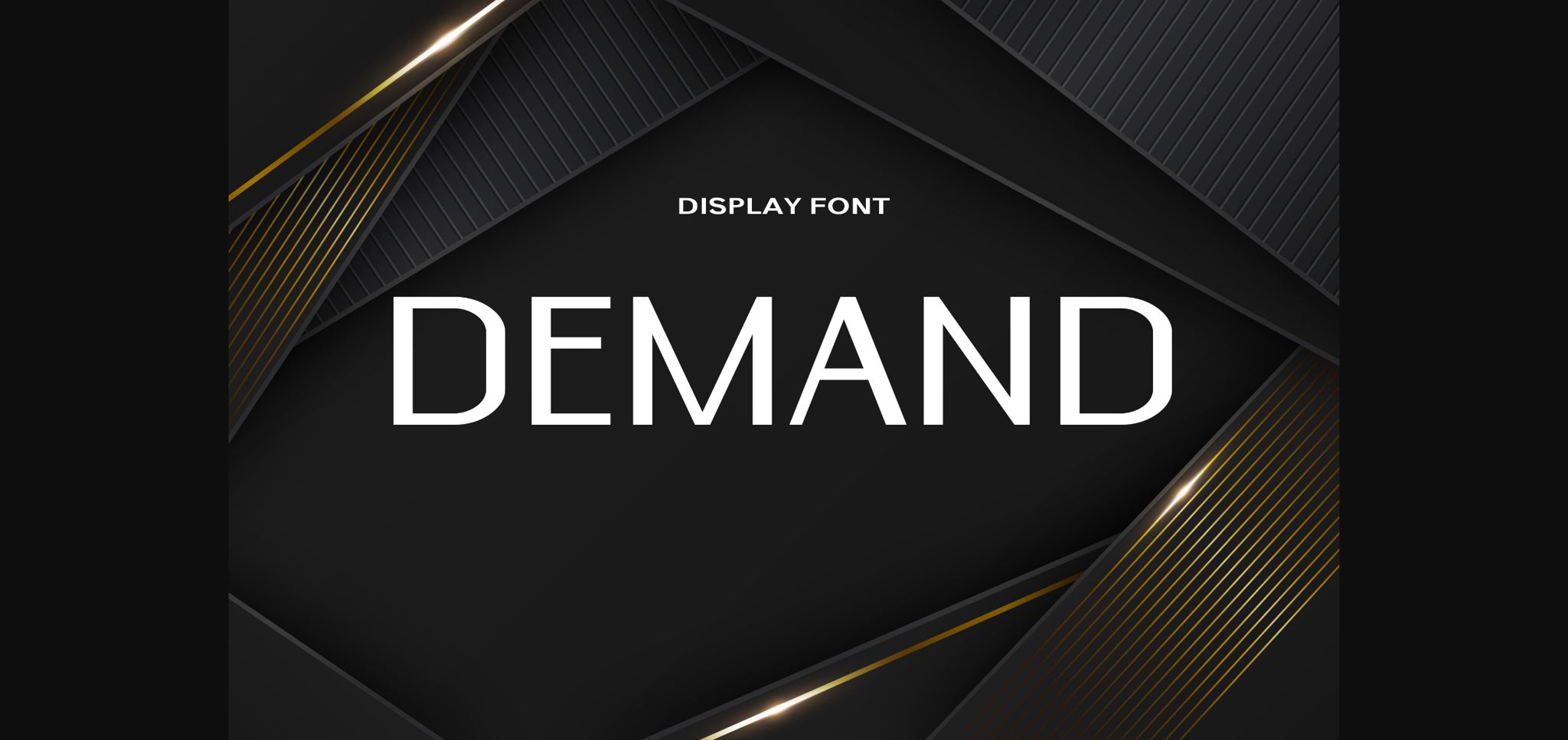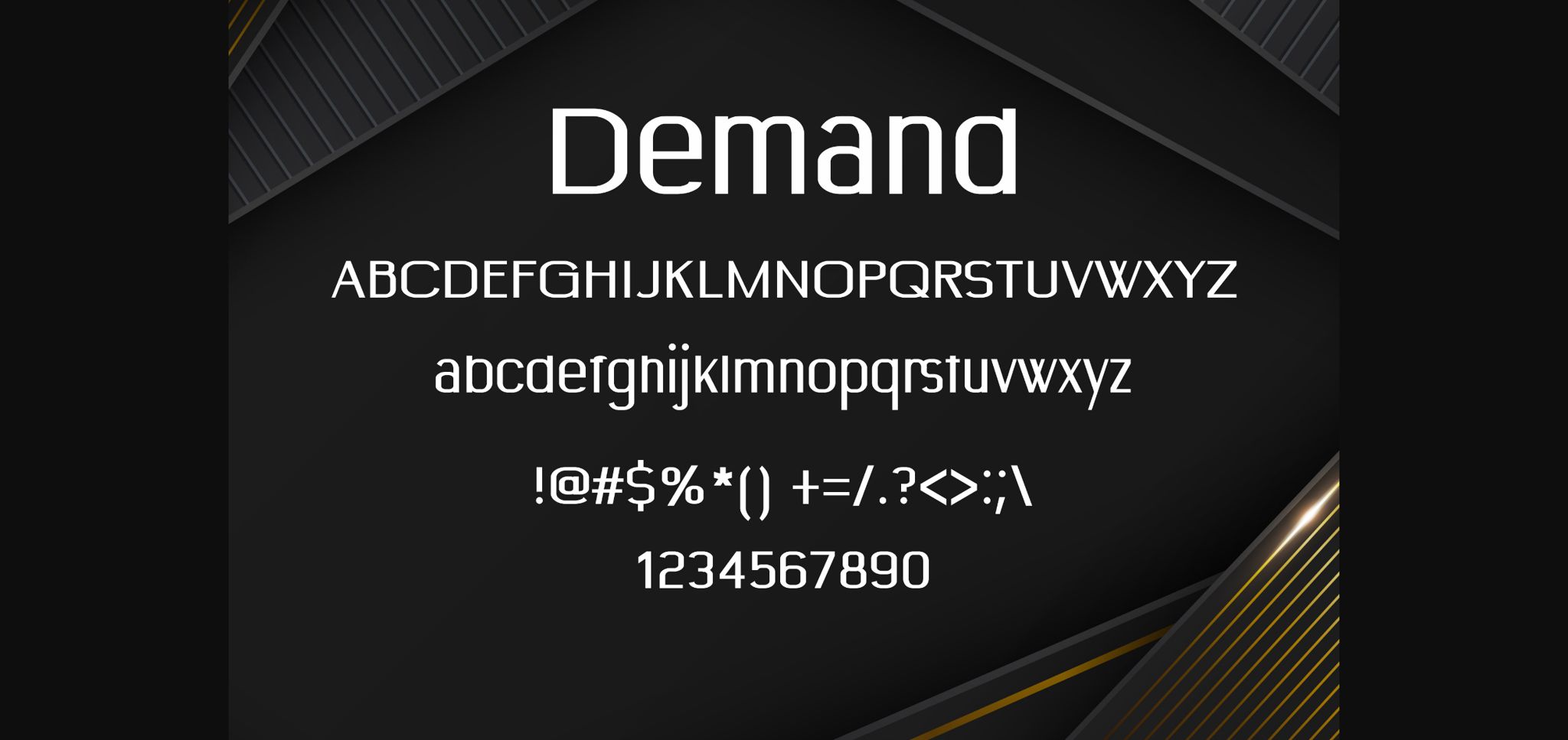
Demand Font
About Demand Font
Demand is a modern and elegant sans serif font. Use this font for any crafting project that requires a personalized look!